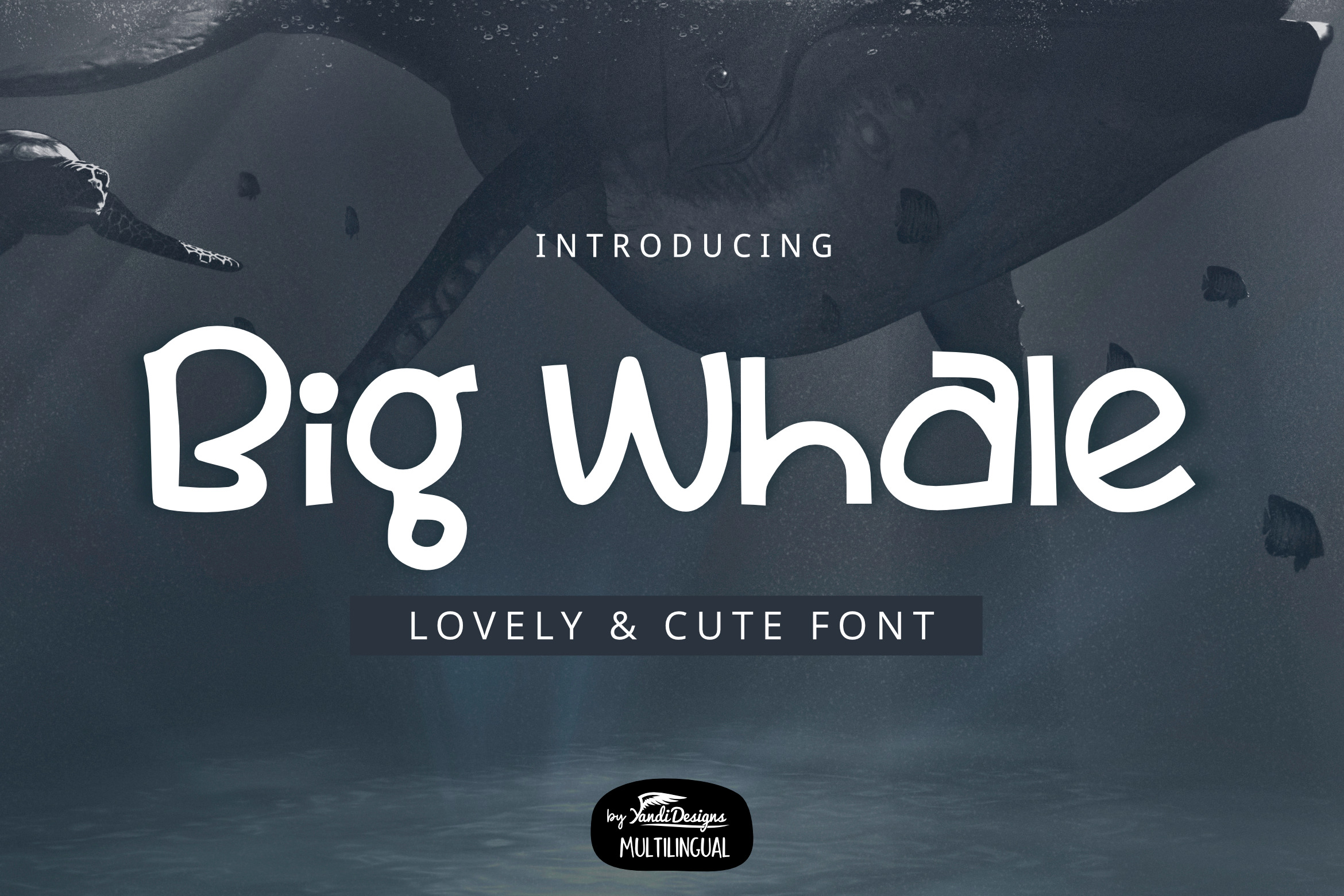
Big Whale Font
Big Whale Font is lovely cute multipurpose handmade font, suitable for many project children book, quotes, logo , heading , title etc.